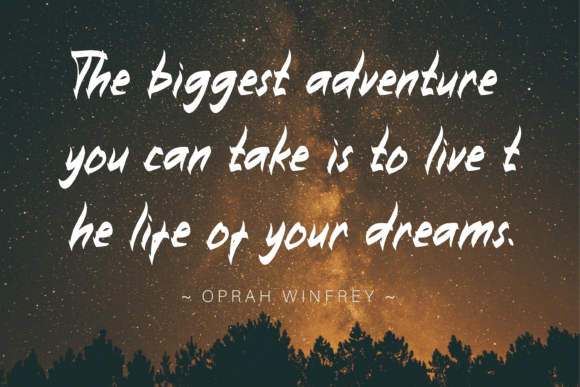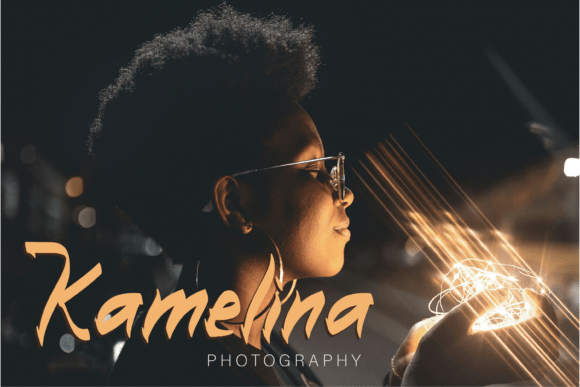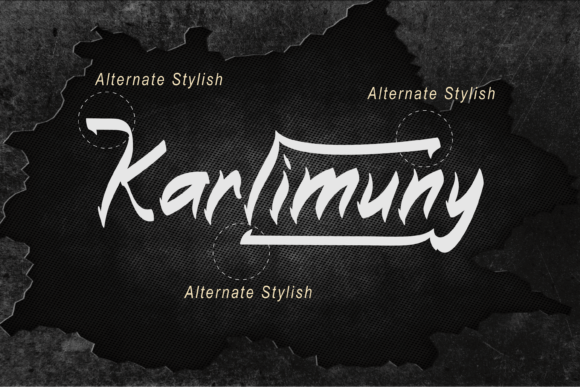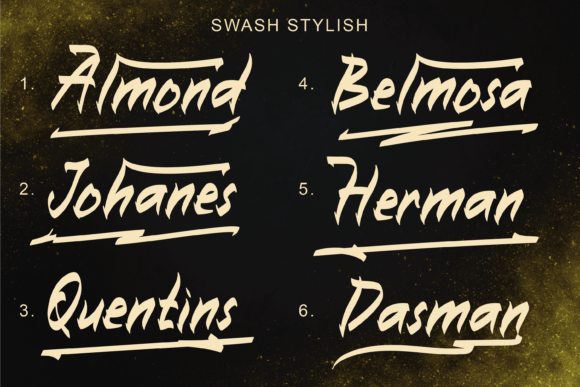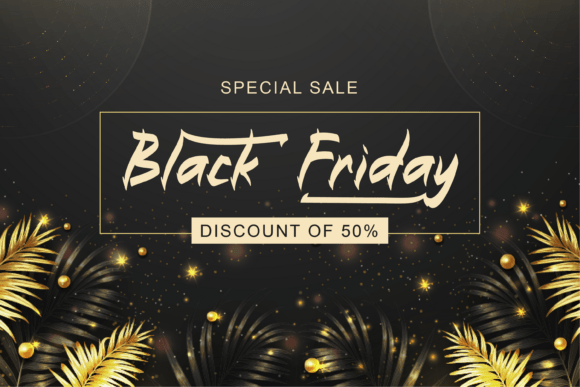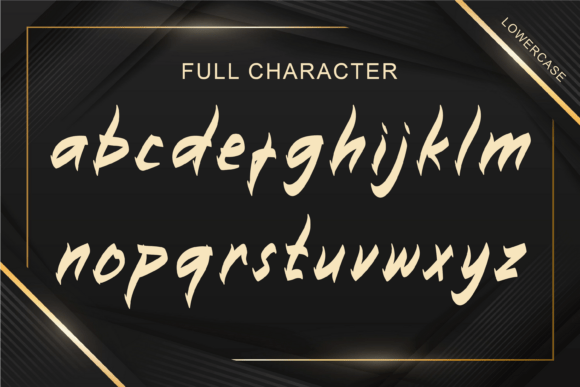
Introduction to Monzaik Font
Introducing Monzaik, a striking display font that showcases a unique personality and style.
This font comes alive with its daring italicized features and adds an edge with deliberately executed strokes, contributing to an overall spine-chilling perception With Monzaik at your fingertips, you can add that distinct handwriting flair to anything from professional photography, watermarks, and gripping social media posts, to inspirational quotes and eye-catching book covers.
Key Features of Monzaik Font